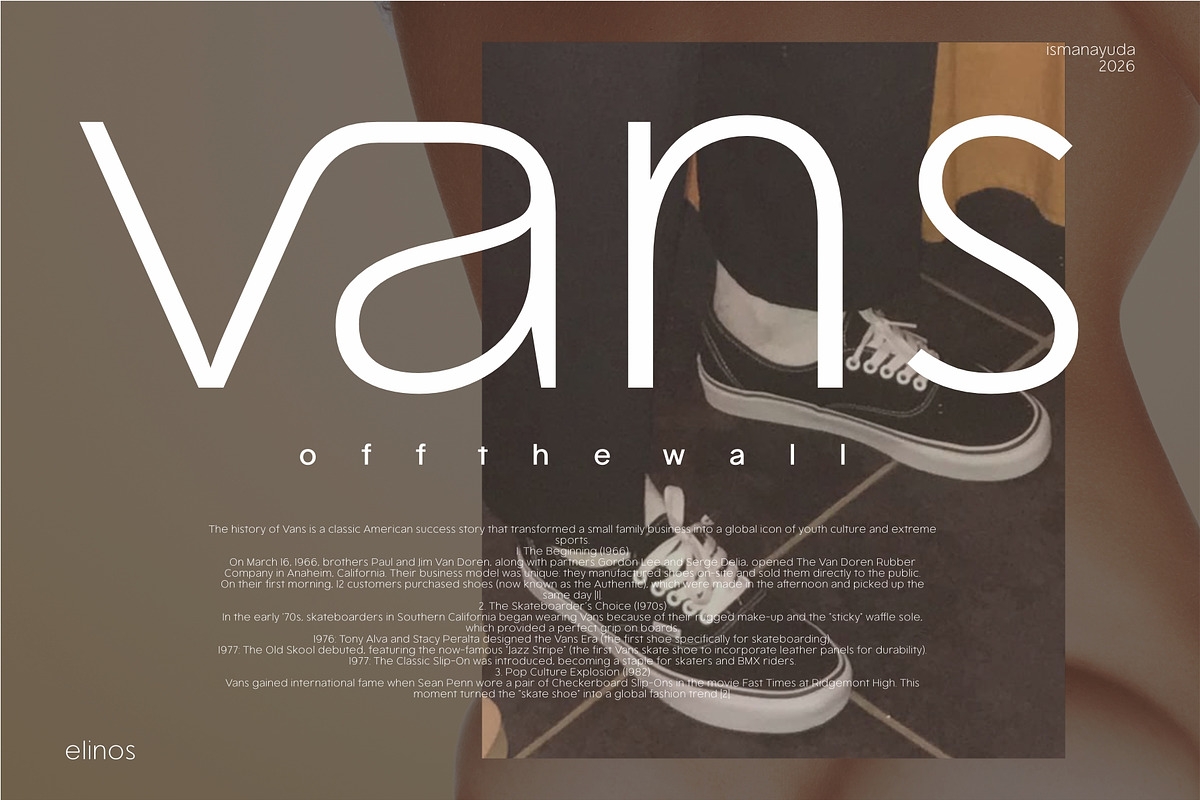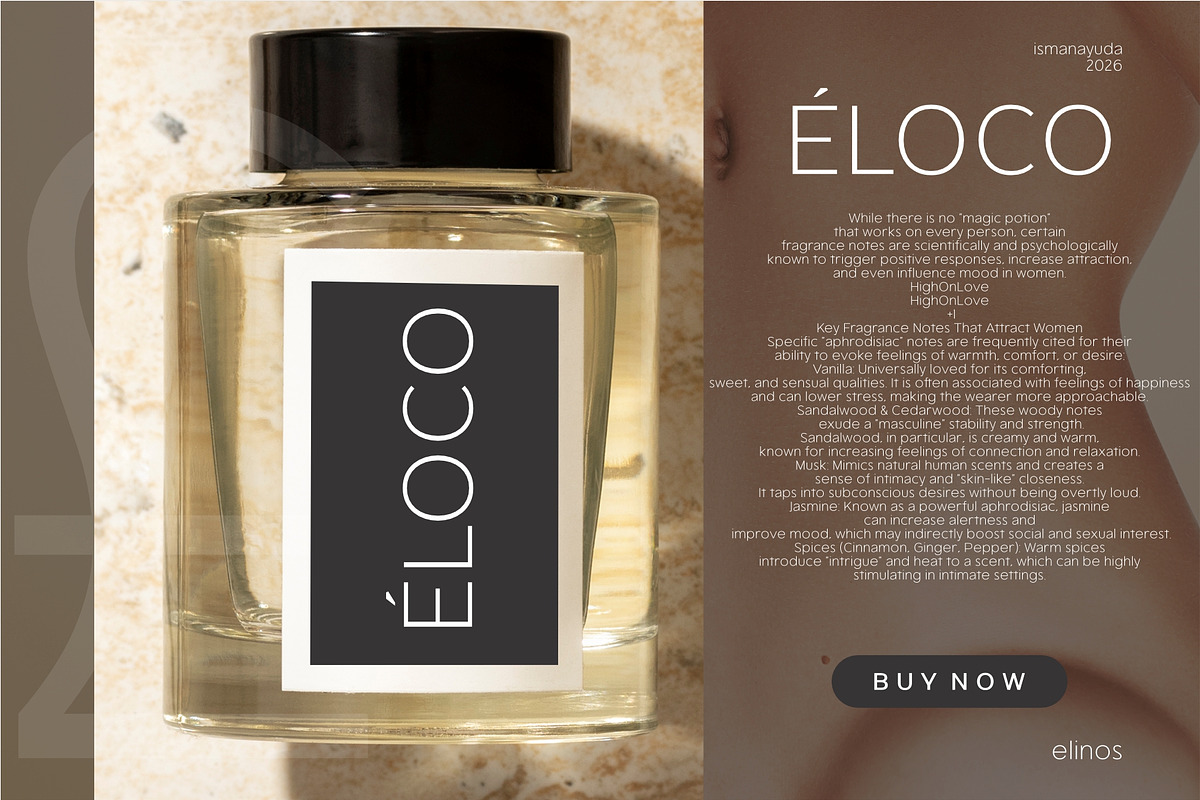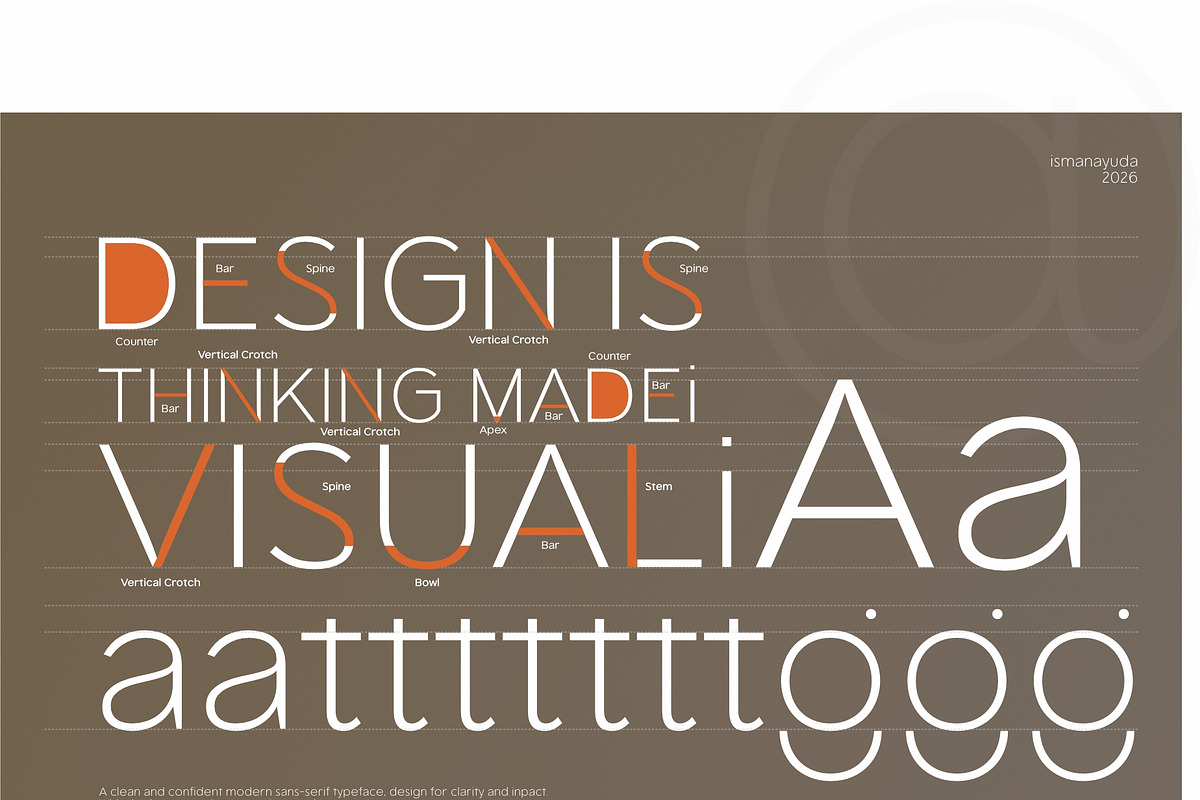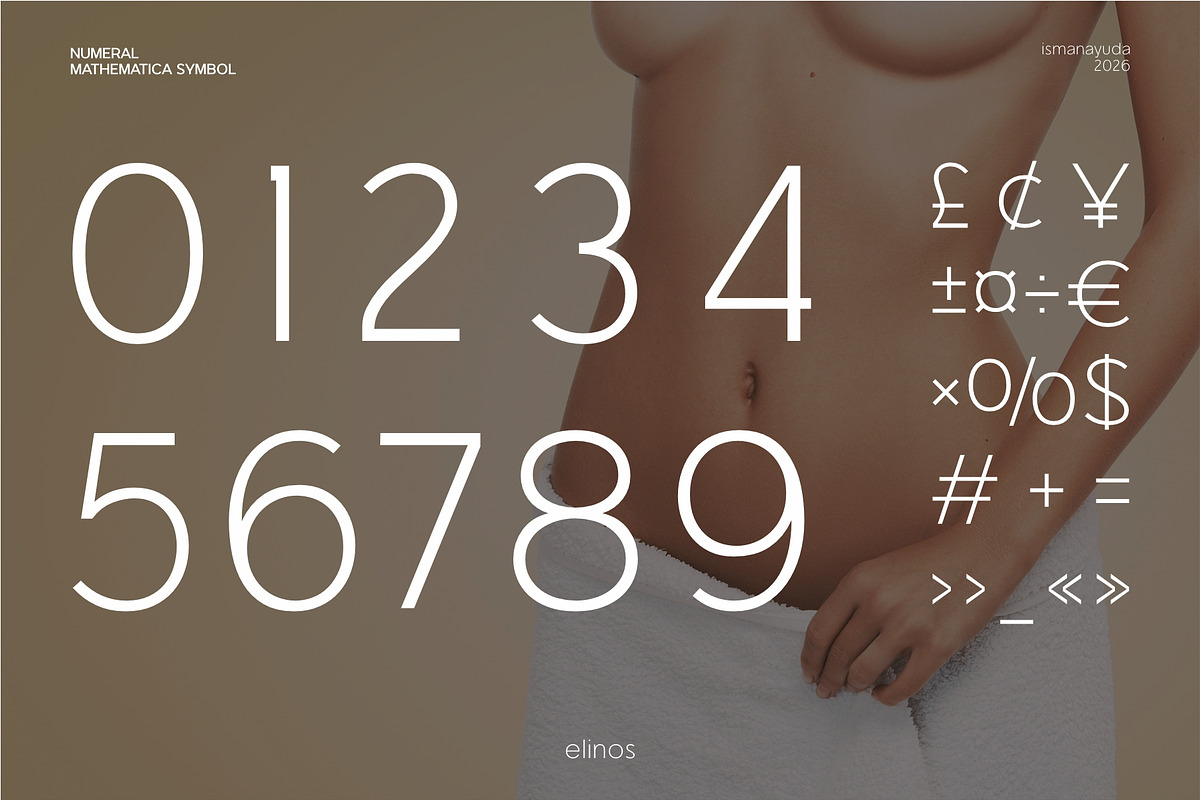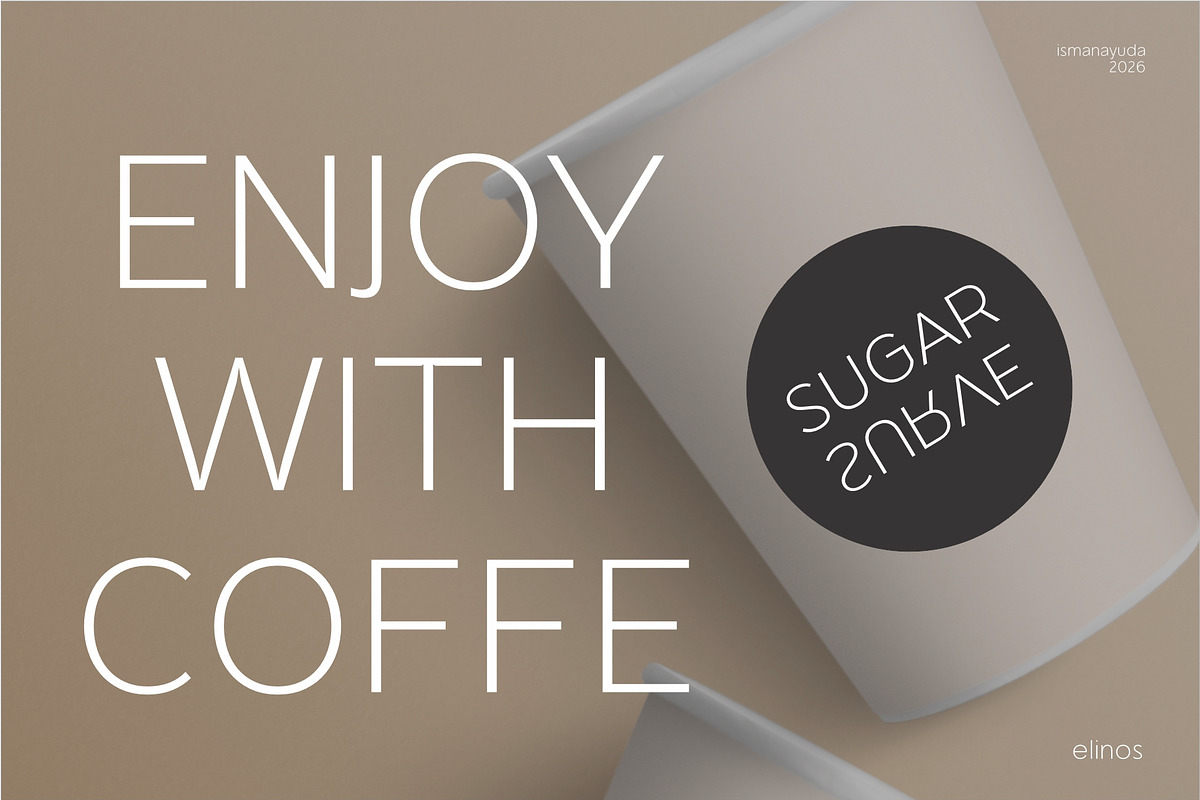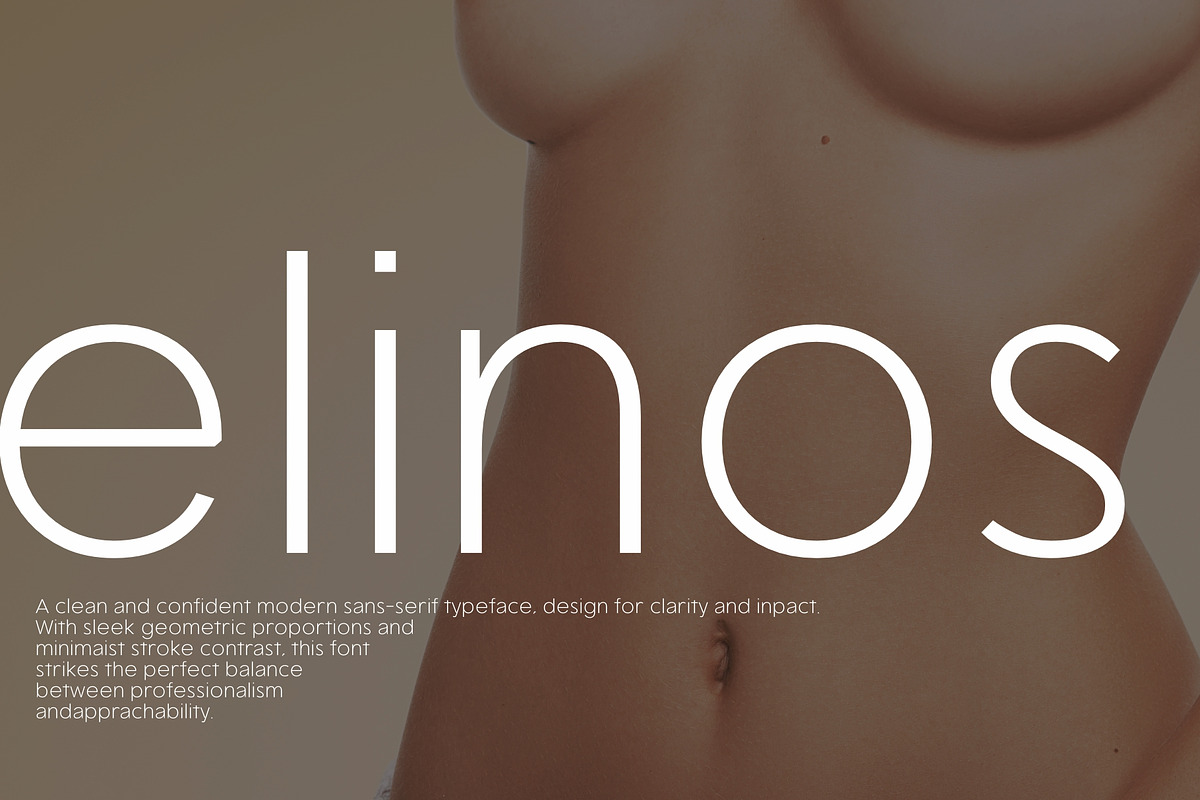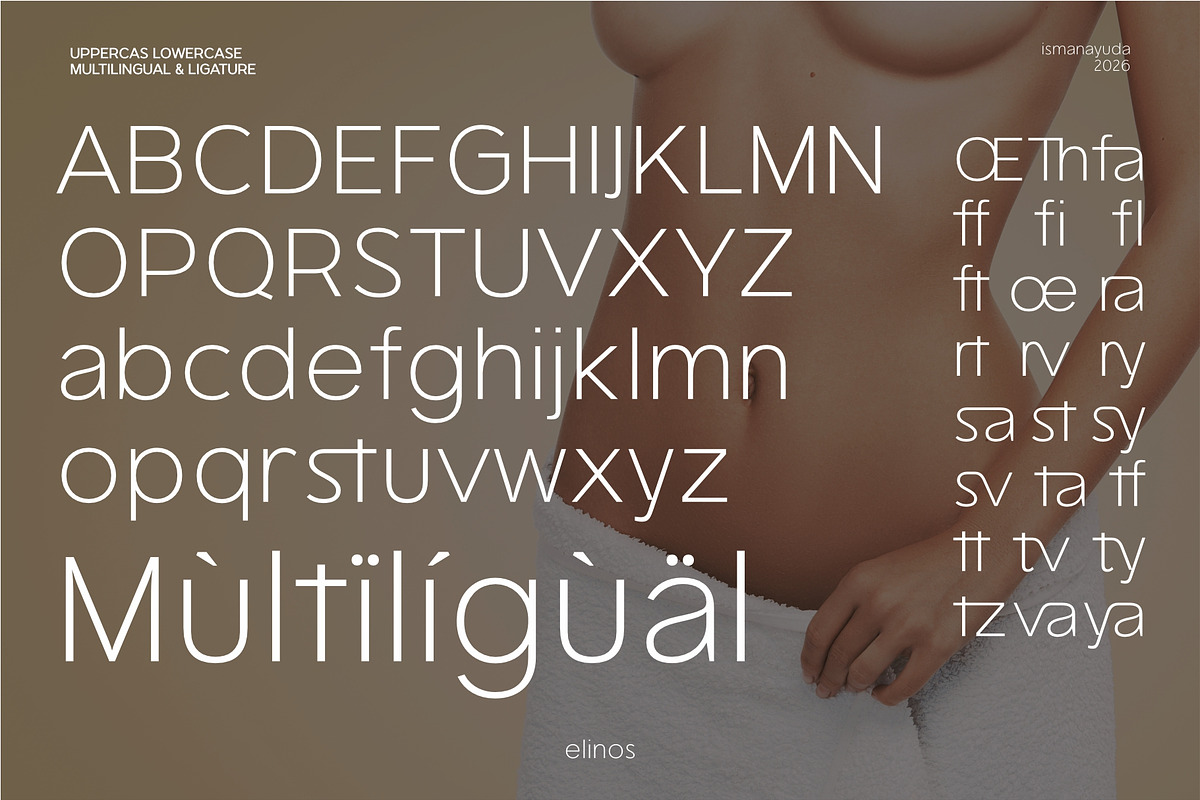
elinos
Based on the image provided, the typeface is a modern geometric sans-serif called Elinos. Font Description Elinos is designed with a focus on minimalism and clarity. Its architecture is rooted in geometric shapes, featuring near-perfect circular curves and straight, uniform lines. The font has a low stroke contrast, meaning the thickness of the lines remains consistent throughout each letter, giving it a clean, monolinear appearance. The large x-height and open counters (the spaces within letters like 'e' and 'o') ensure high legibility even at smaller sizes. Its overall aesthetic strikes a balance between technical precision and approachable elegance, making it suitable for high-end branding, editorial design, and modern digital interfaces.